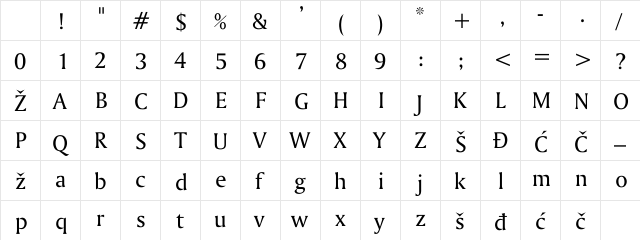
Complete YUBitsAmerigoR Regular glyph index. Displaying only characters natively supported by YUBitsAmerigoR Regular font.
YUBitsAmerigoR is a composed and adaptable typeface that performs quietly and consistently across a wide range of design contexts.